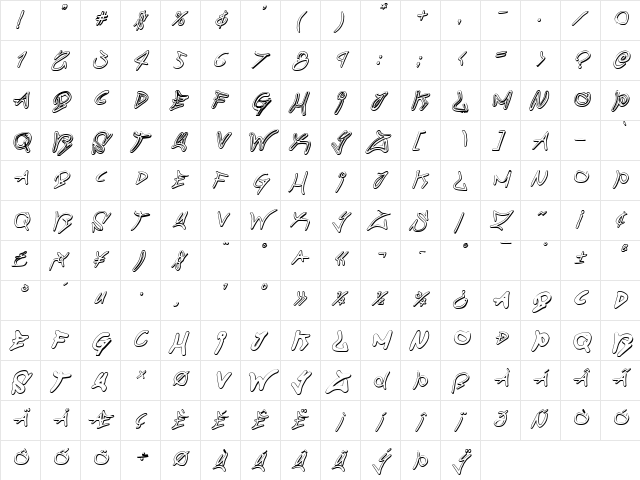
Graffiti Street 3D Italic Italic
Design Context for Graffiti Street 3D Italic Typeface
Graffiti Street 3D Italic is a composed and adaptable typeface that performs quietly and consistently across a wide range of design contexts. Its italic angle brings a sense of urgency and motion to the letterforms.
Pro Tip: Try Graffiti Street 3D Italic for annotation and caption copy alongside an upright companion — the contrast in angle creates a dynamic but ordered typographic system.